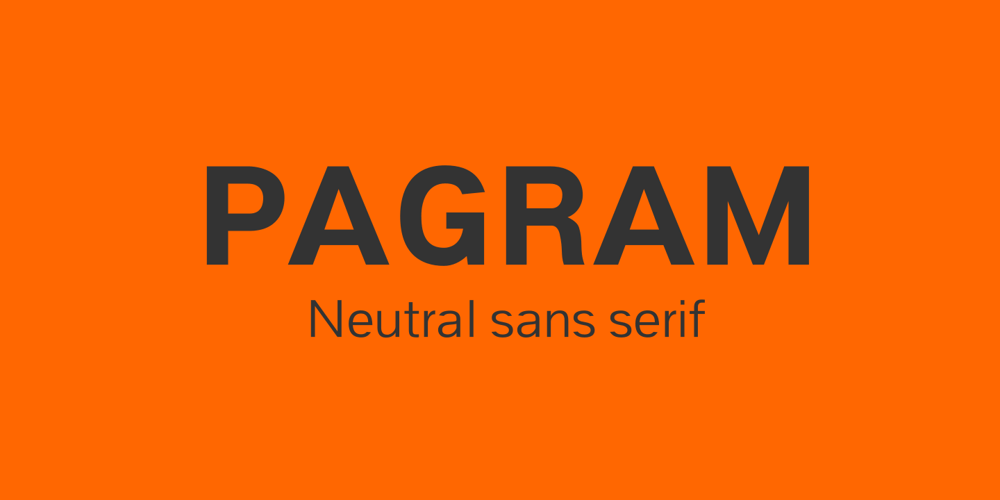
Pagram
Pagram font
Pagram Font Family was designed by Arief Rochman and published by 4RM Font. Pagram contains 8 styles and family package options. Pagram fonts are fonts that have neutral and authentic values, are made without reducing the value of functionality, these fonts are easily adaptable to the use of text and displays such as logos, body text, and others.